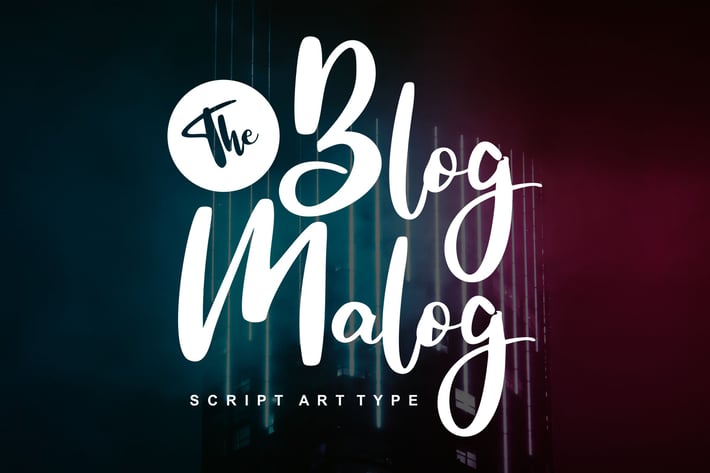
The Blog Malog | Script Arttype Font
The Blog Malog | Script Arttype Font with a calligraphy style, So beautiful on invitation like greeting cards, branding materials, business cards, quotes, posters, and more!